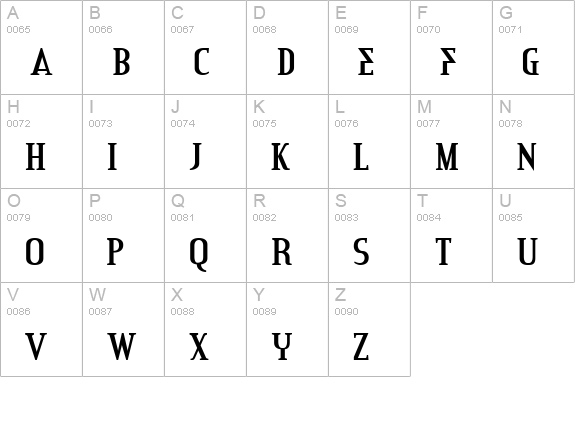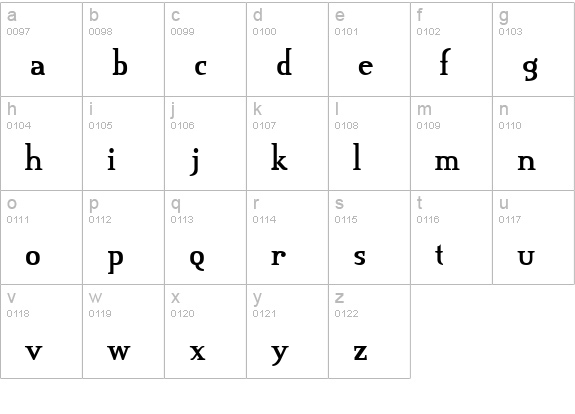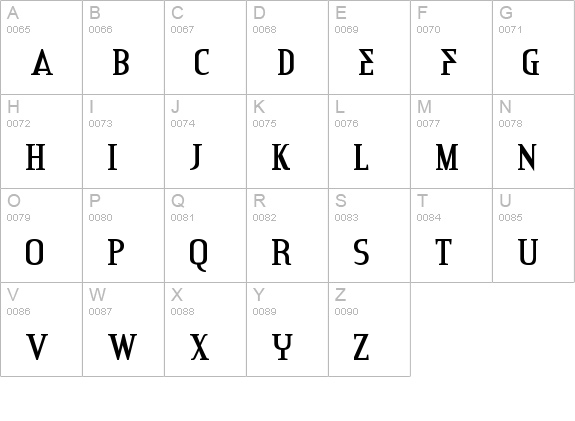
Credit River is a modern and elegant font that exudes sophistication and style. Its sleek lines and rounded edges give it a timeless appeal that is perfect for a wide range of design projects. Whether you're creating a logo, branding materials, or a website, Credit River will add a touch of class to your work. What sets Credit River apart is not only its stunning design but also the fact that it is available for free download at FontsMarket.com. This means that you can access this high-quality font without having to spend a dime, making it a fantastic choice for designers on a budget. With its versatility and accessibility, Credit River is a must-have font for any designer looking to elevate their projects with a touch of elegance. Download it for free today and see the impact it can make on your designs.